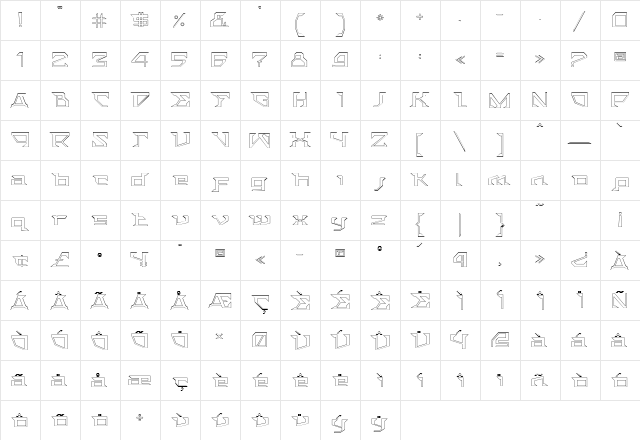
ACTStern Outline Font Preview
ACTStern Outline
Design Context for ACTStern Typeface
ACTStern brings ornamental detail and strong personality to headlines and identities, where visual impact matters more than quiet functionality.
Font Pairing: Pair with a clean neutral sans-serif for body copy to let ACTStern's character lead without overwhelming the composition.
Pro Tip: Treat ACTStern as the centrepiece of your typographic hierarchy. One strong heading set in a decorative face can carry an entire layout.